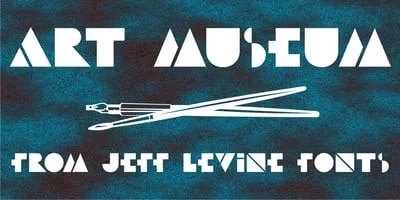
Art Museum JNL Font
Art Museum JNL Font is perfect for gallery exhibition signage, museum catalog layouts, fine arts publications, cultural institution branding, art auction materials, artist portfolio designs, sculpture garden displays, art education programs, contemporary art magazines, creative workshop promotions, and any project that requires sophisticated artistic character with curatorial elegance.
What makes Art Museum JNL Font exciting is its exceptional ability to embody the refined sophistication of world-class cultural institutions through carefully curated letterforms that capture the intellectual depth and aesthetic discernment of fine arts environments. This distinguished typeface features precise proportions with curatorial sensibility that convey scholarly authority while maintaining artistic sensitivity and contemporary relevance. The font's museum character adds instant cultural credibility and artistic prestige to any design, making it perfect for organizations celebrating fine arts and cultural heritage.
Art Museum JNL Font comes in multiple font families including Regular, Bold, Light, Condensed, Display, and Curatorial variations, providing designers with comprehensive options to create cultural compositions and achieve the perfect museum aesthetic for arts-focused design projects.
Whether you're developing cultural institution branding, creating fine arts exhibition materials, or designing artistic educational campaigns, Art Museum JNL Font offers the perfect solution for projects demanding authentic curatorial character and artistic sophistication. This refined typeface excels in both print and digital applications where cultural presence is essential, ensuring your designs communicate artistic excellence and museum-quality standards. The scholarly character and cultural styling of Art Museum JNL Font make it an indispensable tool for designers who prioritize fine arts culture, curatorial expertise, and sophisticated artistic communication in their typographic selections.